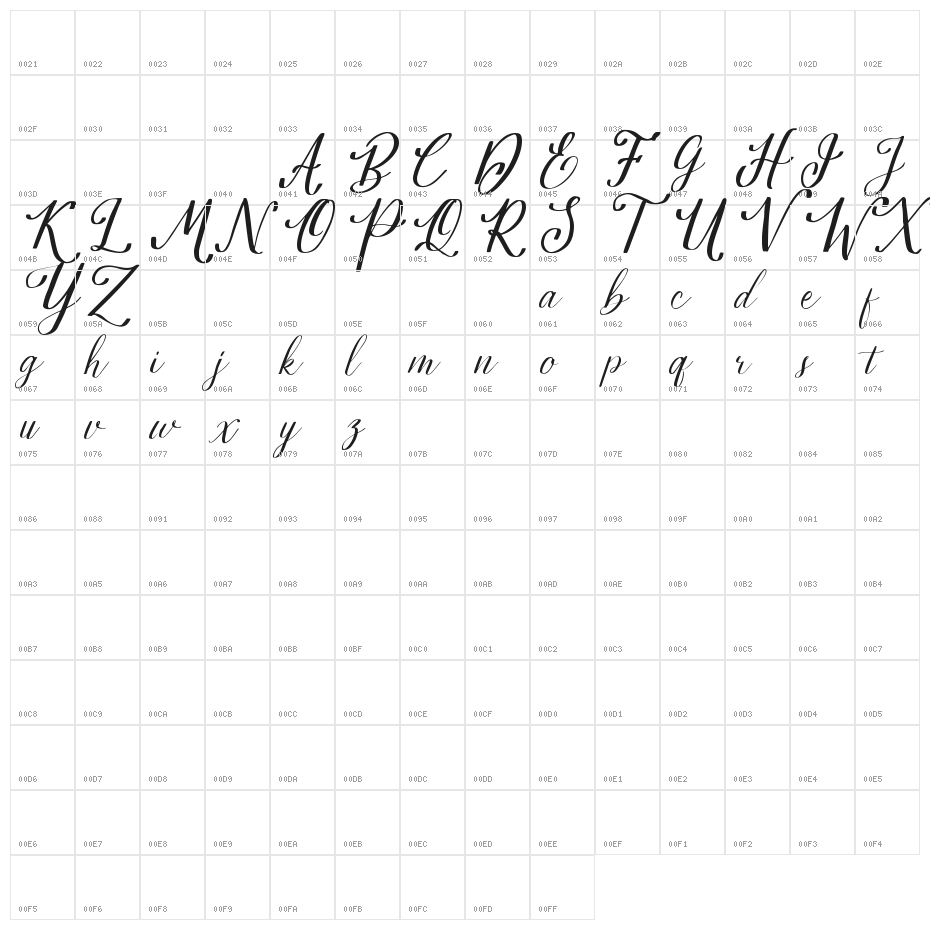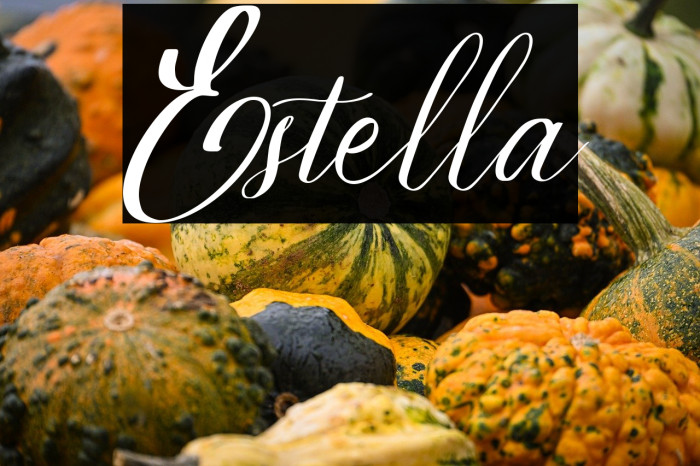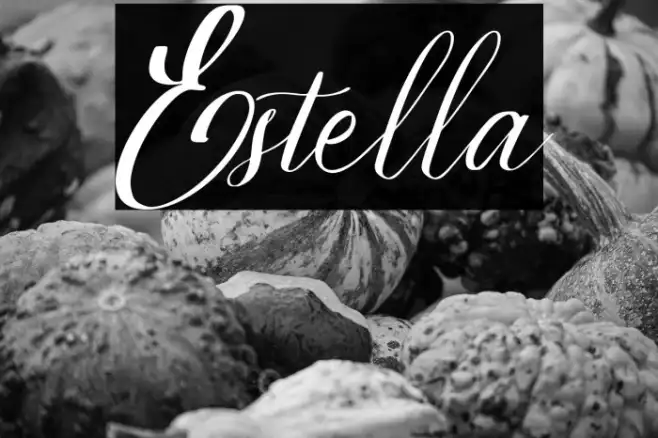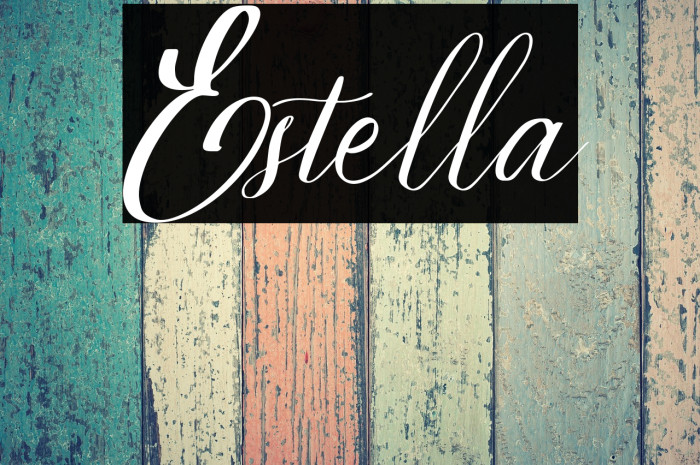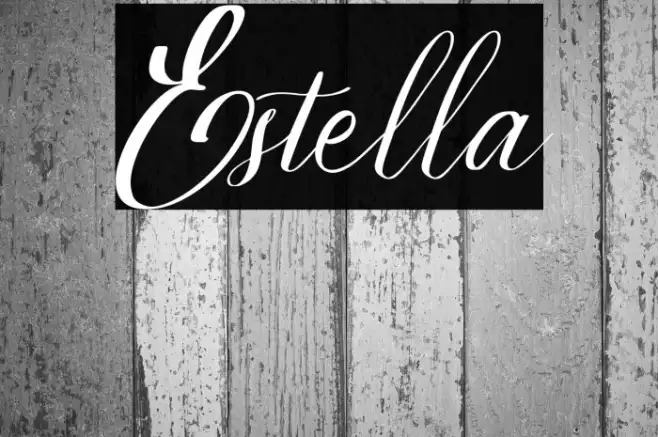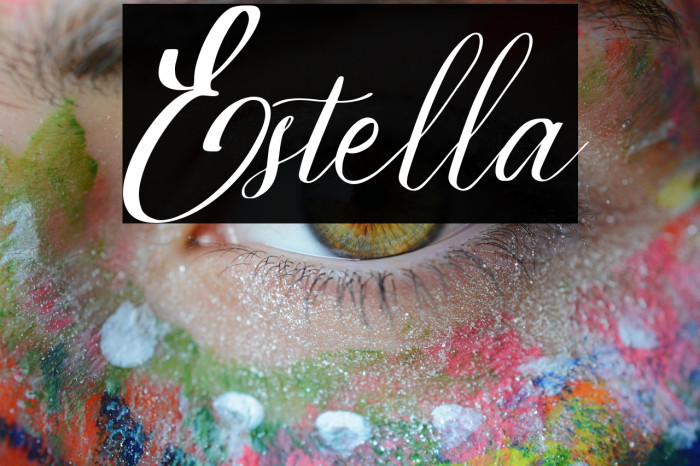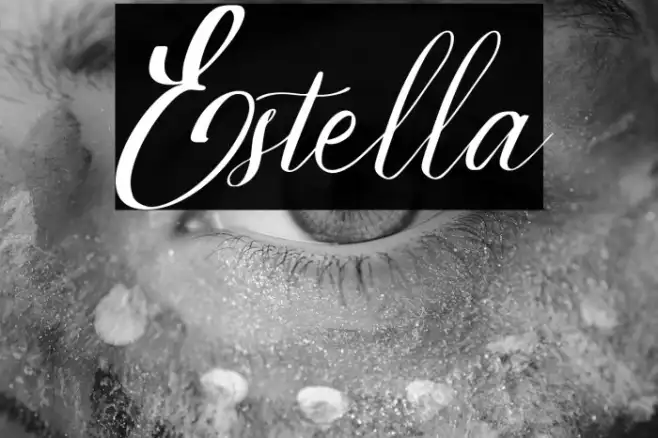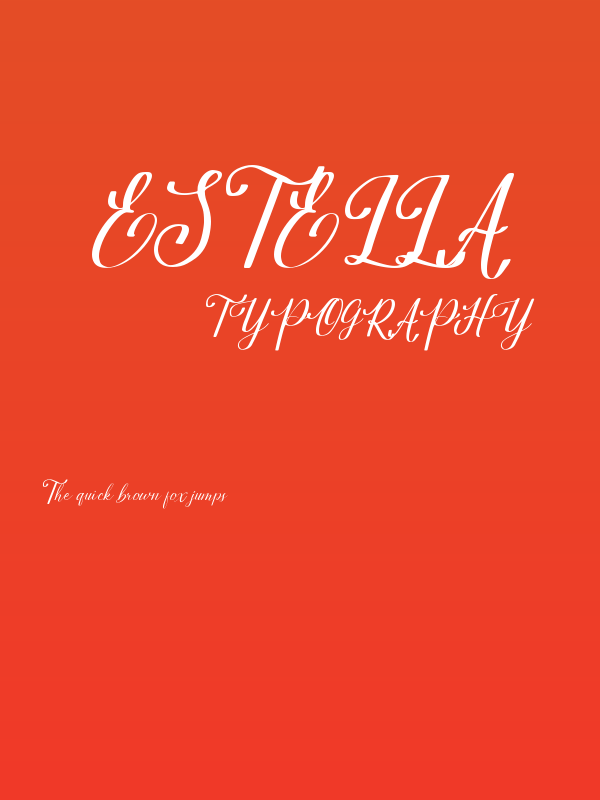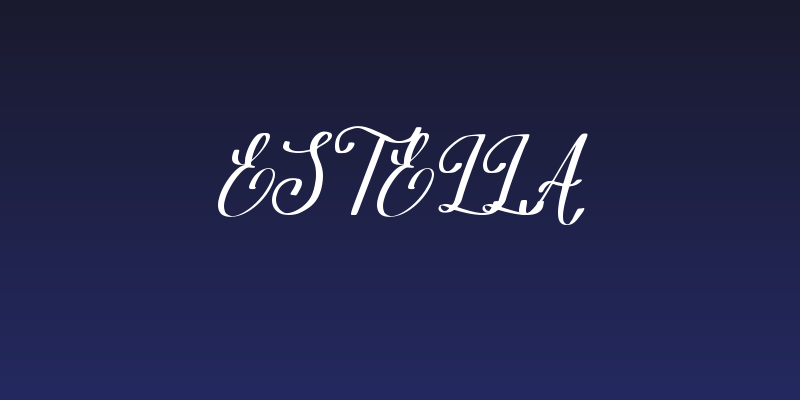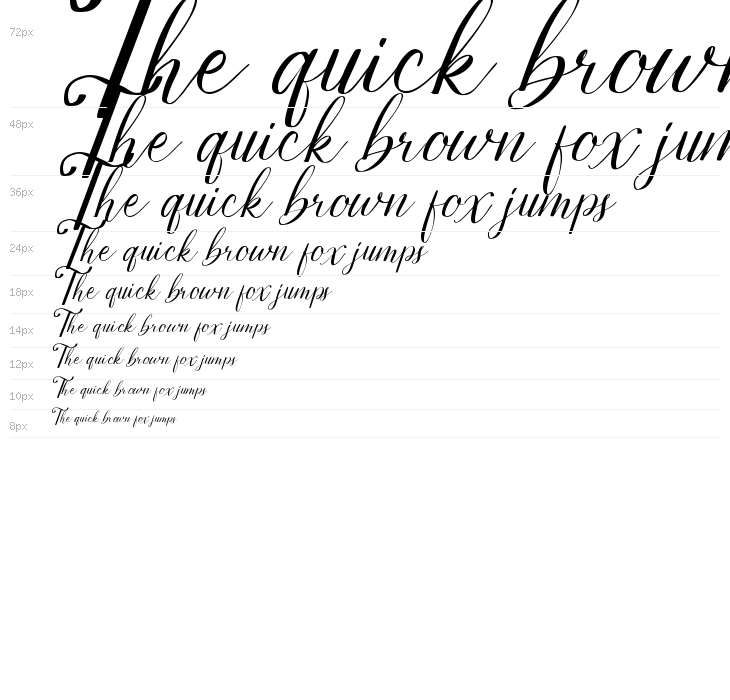
Estella Font
Estella Description
This elegant script font features flowing, cursive letters with a refined and sophisticated appearance. The uppercase letters are characterized by their sweeping curves and intricate loops, giving them a sense of movement and grace. The lowercase letters maintain a consistent style, with smooth connections and a slightly more compact form. The font's overall design is reminiscent of traditional calligraphy, making it suitable for formal and decorative purposes. The characters are well-balanced, with a harmonious blend of thick and thin strokes that enhance its readability while maintaining an artistic flair.
| Use Case | Logos, Invitations, Decorative Text |
| Proposed Projects | Ideal for wedding invitations, elegant branding, greeting cards, and high-end product packaging. |